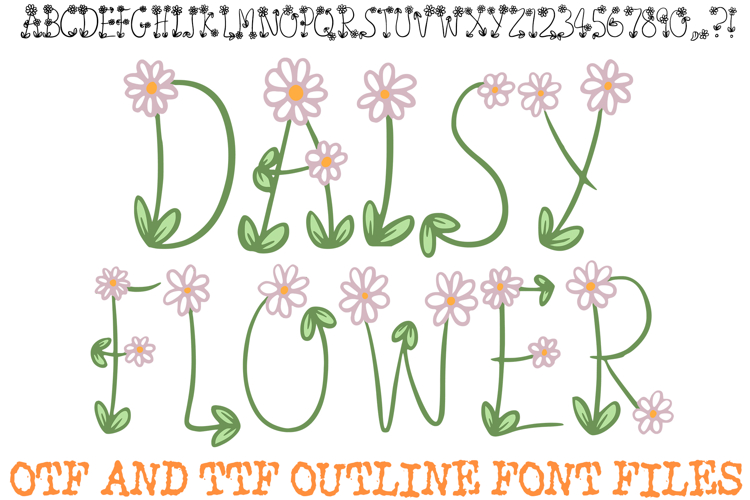
Daisy Flower Doodle Font Typography Lettering ABC OTF
Add a touch of nature-inspired whimsy to your creative projects with the Daisy Flower Doodle Font! This charming, hand-drawn display alphabet features delicate, stem-like letterforms blooming with soft pink and white daisy petals and lush green leaves. It is the perfect choice for spring-themed invitations, garden-style branding, nursery wall art, and feminine digital scrapbooking layouts.
Each character is meticulously crafted to resemble a growing flower, blending organic curves with playful floral accents that bring a fresh, garden-fresh feel to your typography. Whether you are designing a birthday card for a flower lover or creating cheerful social media graphics, this font offers a soft, cottagecore aesthetic that is both elegant and fun.
Intricate Floral Details: Every letter and number is adorned with detailed daisy blooms and tiny green leaves for a cohesive botanical look.
Whimsical Stem Shapes: The thin, curving lines of the characters mimic natural plant growth, providing a unique hand-lettered appearance.